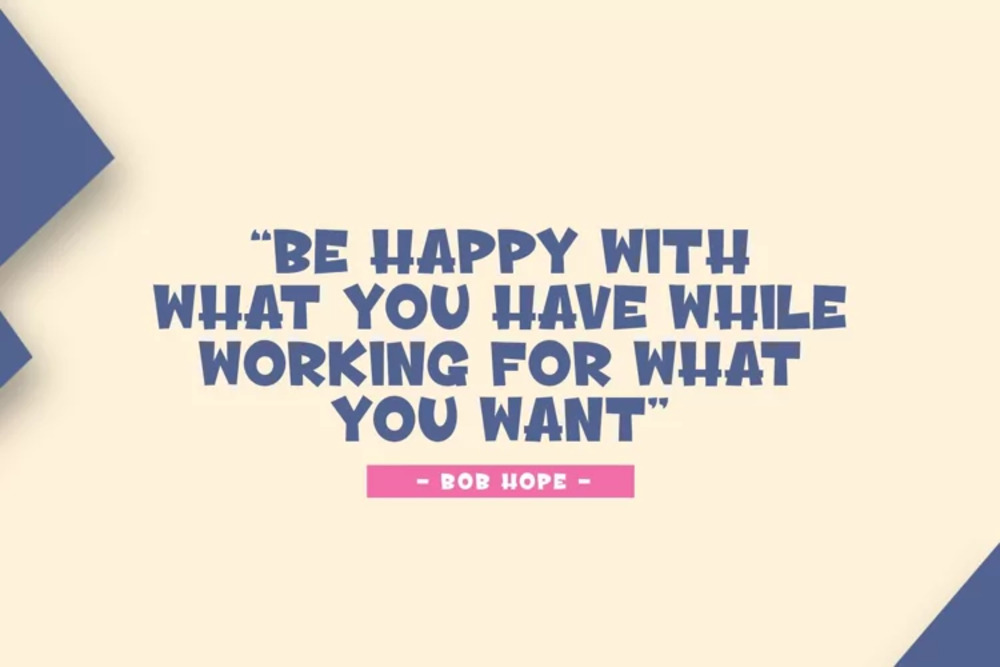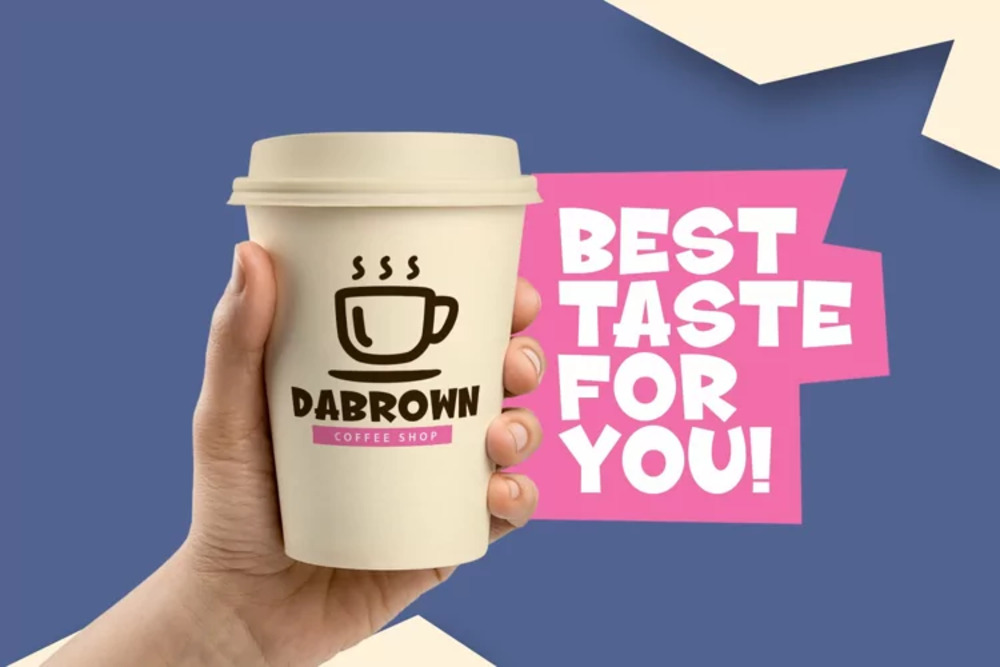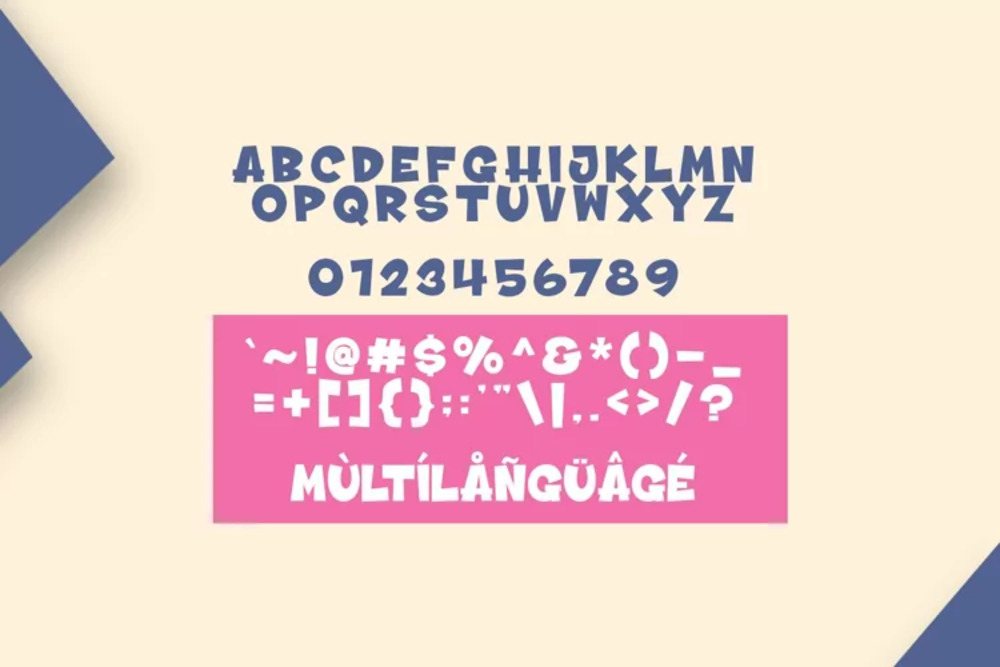
Grow Beige Font
Grow Beige is a soft yet sophisticated font that embodies warmth, elegance, and natural charm. With smooth curves and a refined structure, it evokes a sense of organic beauty and minimalism. Perfect for branding, interiors, and lifestyle designs, Grow Beige enhances readability while maintaining a chic, earthy aesthetic. Its timeless appeal makes it ideal for modern and understated luxury projects.